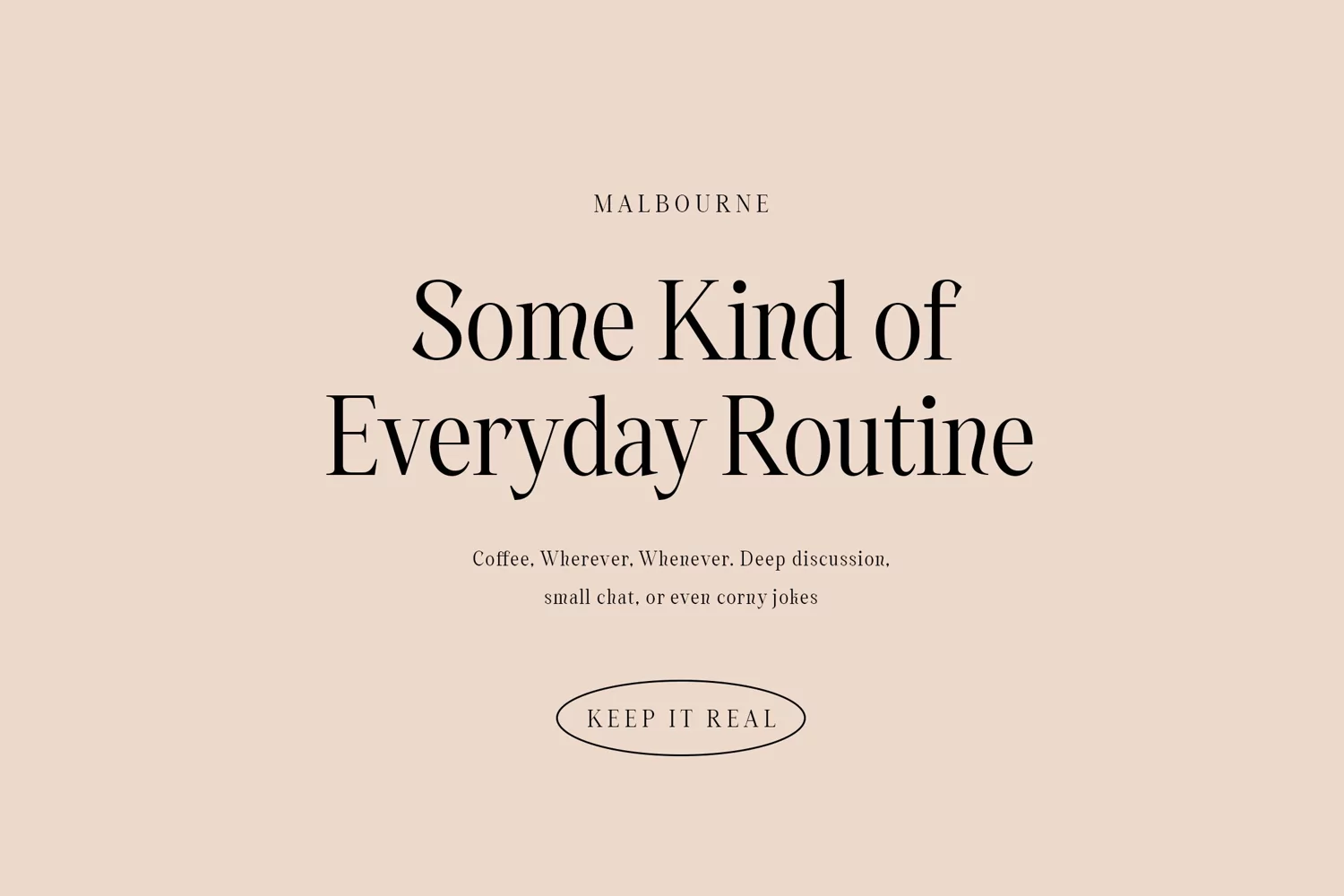
Quinshe - Elegant Classic Beauty Expressive Serif Font - Royal Fashion Classy Fancy Font
Quinshe comes with some ligatures, so you can combine it to make a perfect typography design. It is perfect for your up coming projects. Such as luxury logo and branding, classy editorial design, woman magazine, cosmetic brand, fashion promotional, art gallery branding, museum, historical of architectural, boutique branding, stationery design, blog design, modern advertising design, card invitation, art quote, home decor, book/cover title, special events and any more.